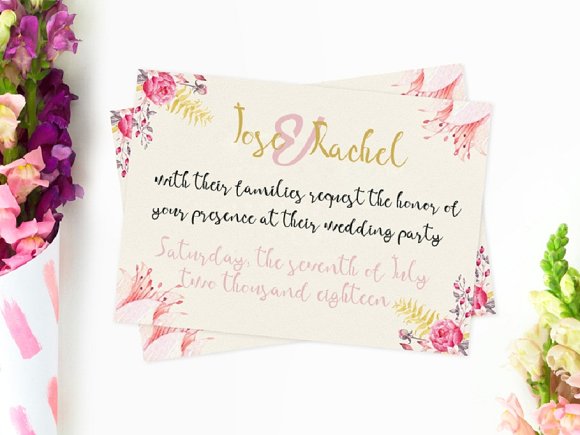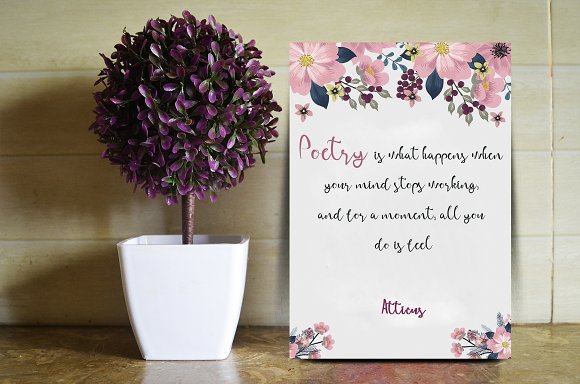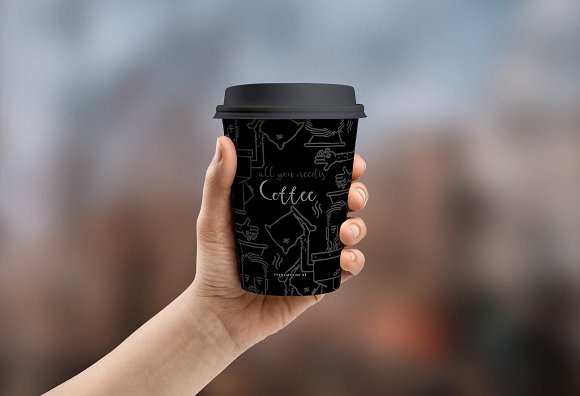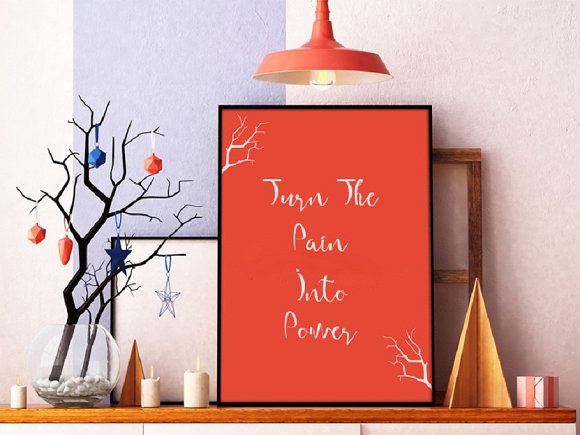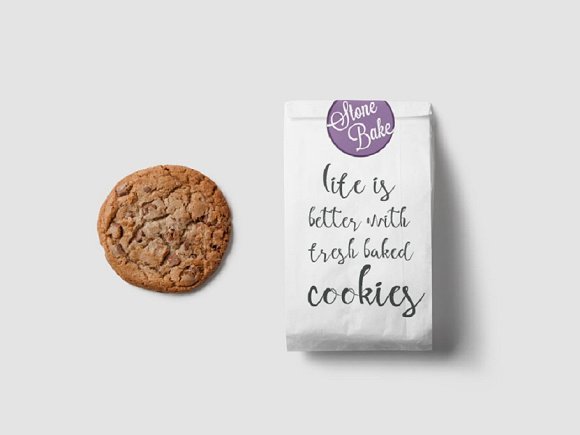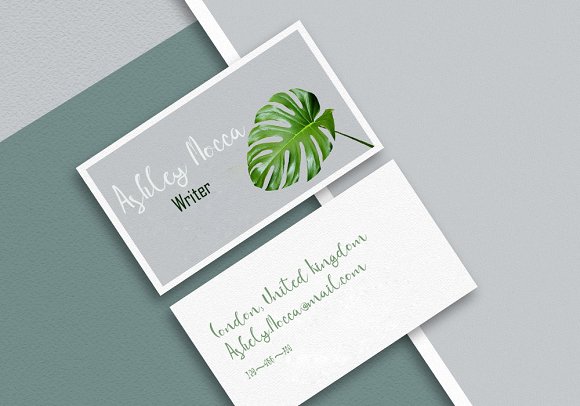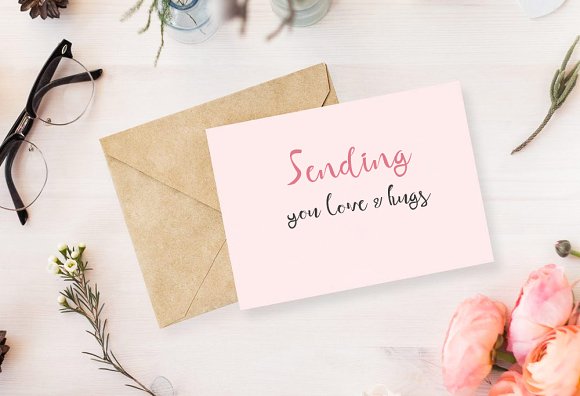
Seafaring Font
Seafaring is a new modern script font family, with elegant touch, casual and lovely. This font will perfect for many different project,such as: quotes, logo, blog header, poster, wedding, branding, fashion, apparel, letter, invitation, stationery, etc